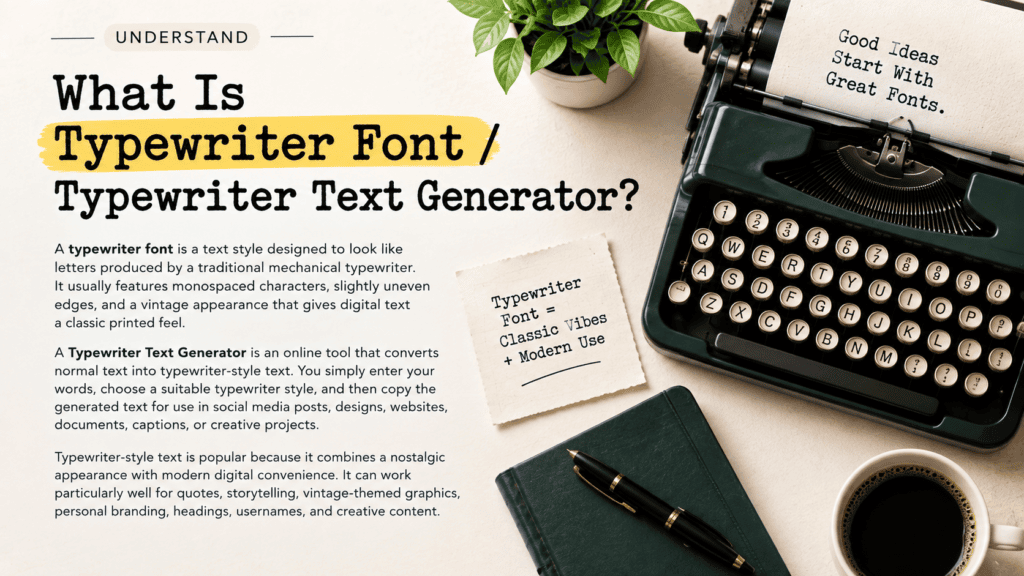
Typewriter Font Generator
A Typewriter Font Generator turns ordinary text into a classic, monospaced typeface with a vintage feel, bringing nostalgia and retro character to modern projects, while preserving readability and an old-school aesthetic for memorable digital writing.
From quotes to branding, I’ve found this tool useful when a design needs readable characters, spacing, and authentic appearance. The generator works online, processes locally in a browser, keeps data private, and delivers instant result.
What Is Typewriter Font / Typewriter Text Generator?
A typewriter font recreates the visual logic of mechanical typewriters through monospaced lettering, giving each character deliberate spacing. A font generator turns ordinary text into a vintage-looking style without changing the words themselves today, online.
From my experience designing typewriter-style layouts, the strongest results balance authenticity, classic character, readability, and subtle imperfections. A text generator makes that transformation practical, whether the finished output supports personal writing or creative projects, branding.
How To Use The Typewriter Font Generator
Start by entering your text into the input box, then choose a typewriter font that matches the vintage mood you want. Adjust size, spacing, and color before checking the live preview carefully with the tool.
For practical work, I test short passages first, then create the output and download it for social media, documents, or branding. The generator processes everything in your browser, keeping the workflow simple, fast, and secure.
What Can You Do With Typewriter Font Generator Tool?
Create nostalgic text for social media, posters, stories, or quotes using a typewriter-style font, classic monospaced lettering, and the generator. I often test vintage designs, compare styles, and give branding a retro feel without editing.
Beyond decoration, the tool helps shape authentic typewritten text for projects, packaging, journalism, and creative writing. Explore serif or sans-serif choices, adjust font presentation, and build clean outputs retaining subtle imperfections, readability, and old-school appearance.
Typewriter Font Translator
Typewriter Font Translator converts ordinary text into a typewriter inspired style, useful when a translator must preserve characters, spacing, and visual shape while moving between languages. It offers a simple way to create consistent output.
In practice, I use it for documents, notes, captions, and design drafts where timeless formatting matters. The online tool can generate results, then copy them for social sharing or professional projects without changing the message.
For mobile work, browser processing can preserve private data while users download creations to an installed device or open them in programs. That workflow suits blogs, posts, and storytelling, especially when quick access matters securely.
Popular Uses For Typewriter-Style Text
Detective stories, crime notes, and historical projects gain character when typewriter styling adds authenticity without sacrificing legibility. I often use it for reports, captions, and archival posts where a worn surface feels intentionally human today.
For branding, invitations, personal journals, or nostalgia campaigns, minimalist type can create charm quickly. A retro-inspired treatment may suggest mystery and intrigue, while restrained irregular marks keep digital text convincingly tactile online with unusual personality.
Download These Typewriter Fonts
For reliable projects, I usually save several fonts after testing their typeface character. Vintage-inspired options work well for covers, while modern designs suit digital notes; keeping files organized makes later editing, reuse, and sharing much easier across projects.
A practical collection should include Courier, American Typewriter, and Olivetti styles, especially when a project needs nostalgia, craftsmanship, or a minimalistic feel. I prefer downloading a few variations first, comparing readability, then selecting the most appropriate font for publication.